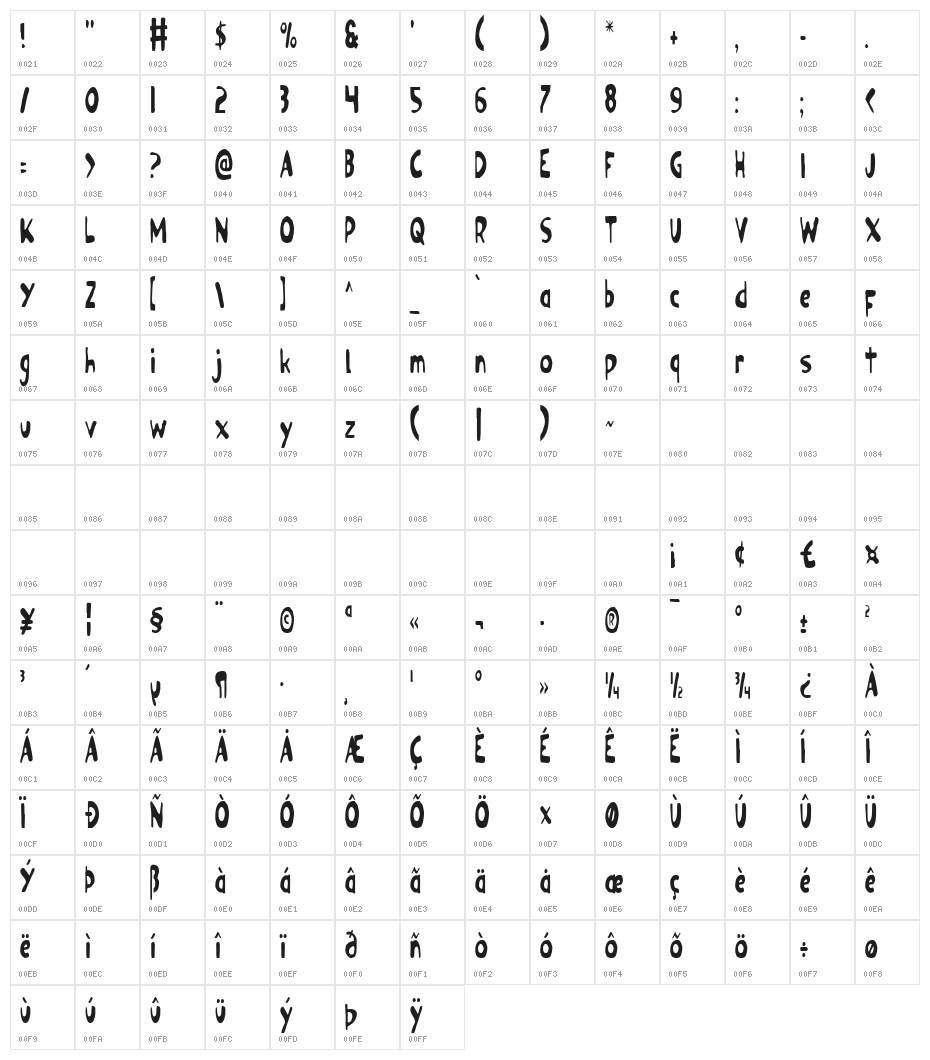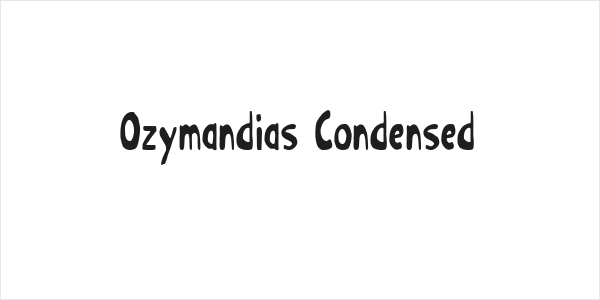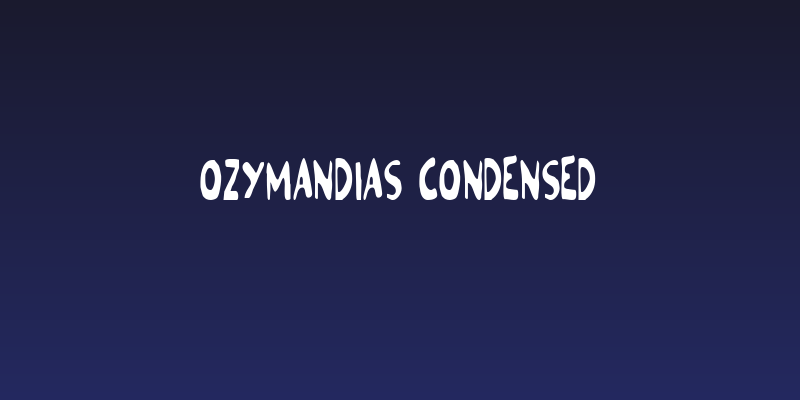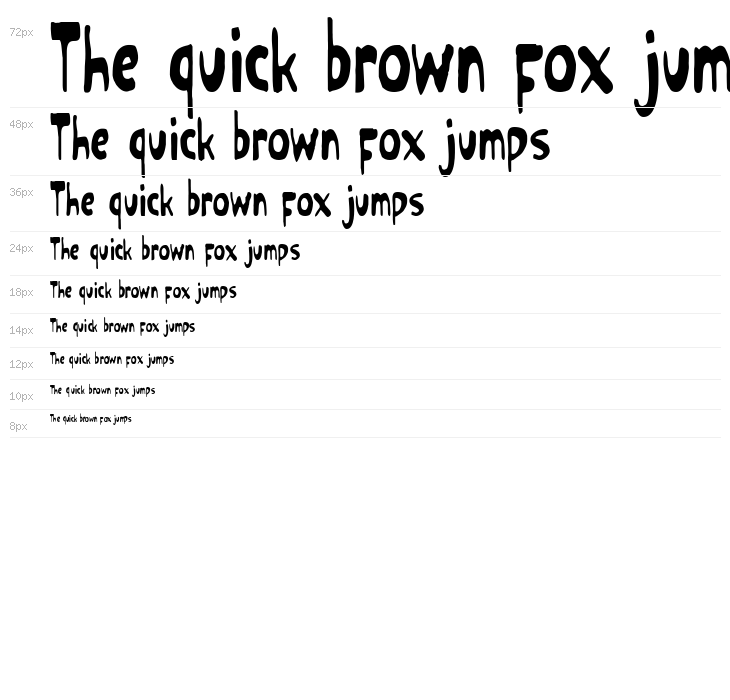
Ozymandias Condensed Font
Ozymandias Condensed Description
This font features a bold and playful design with a hand-drawn aesthetic. The characters are condensed, giving them a compact appearance that is both quirky and expressive. The strokes are uneven, adding to the whimsical and informal style. The uppercase and lowercase letters maintain a consistent visual theme, while the numerals and special characters complement the overall look. This font's unique personality makes it stand out, offering a creative and artistic vibe.
| Proposed Projects | Ideal for children's books, playful branding, creative posters, and artistic projects. |